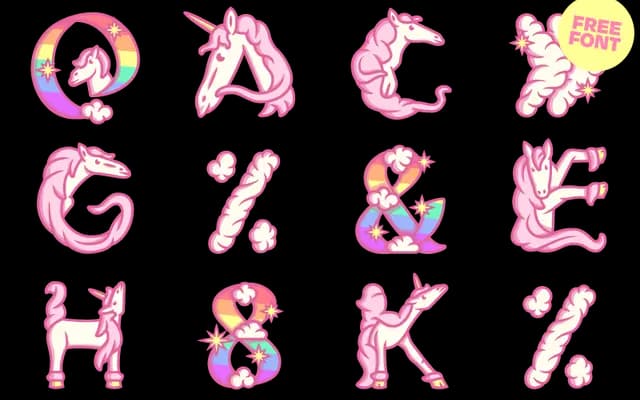
Magical Unicorn Neue Pro
A free novelty display family with colour font and variable capabilities, built around a unicorn theme across eight distinct styles.
The family spans eight styles: line variants in Horn and Sans cuts, colour palette versions in Color and Noire, and two experimental variable styles including a variable colour version. Colour font support and variability make it technically more ambitious than most novelty typefaces of its kind. Distributed free for all use including commercial, covering Basic Latin and Central and Western European character sets.
A novelty decorative typeface built around a unicorn motif, featuring chromatic colour fonts and variable experimental versions; firmly in the display/decorative category with no conventional text use intended.